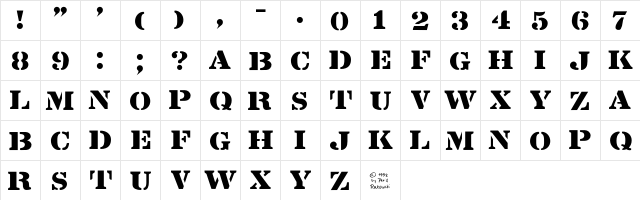
Lintsec Regular
Design Context for Lintsec Typeface
Lintsec offers clean, dependable letterforms without strong stylistic allegiance, making it a practical choice for designers who need flexibility.
Pro Tip: Pair Lintsec with a font of contrasting weight or personality to build a more expressive typographic hierarchy.